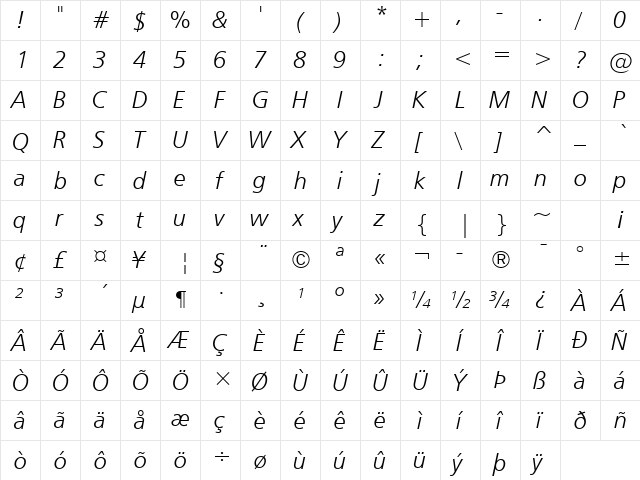
Humnst777 Lt BT Light Italic Font Preview
Design Context for Humnst777 Lt BT Typeface
Humnst777 Lt BT takes a measured approach to typography — its balanced proportions and neutral character make it a reliable workhorse for both digital and print work. The dynamic lean of this cut emphasises speed and emphasis in any layout. The delicate stroke weight brings airiness and refinement to layouts.
Pro Tip: Try Humnst777 Lt BT for annotation and caption copy alongside an upright companion — the contrast in angle creates a dynamic but ordered typographic system.